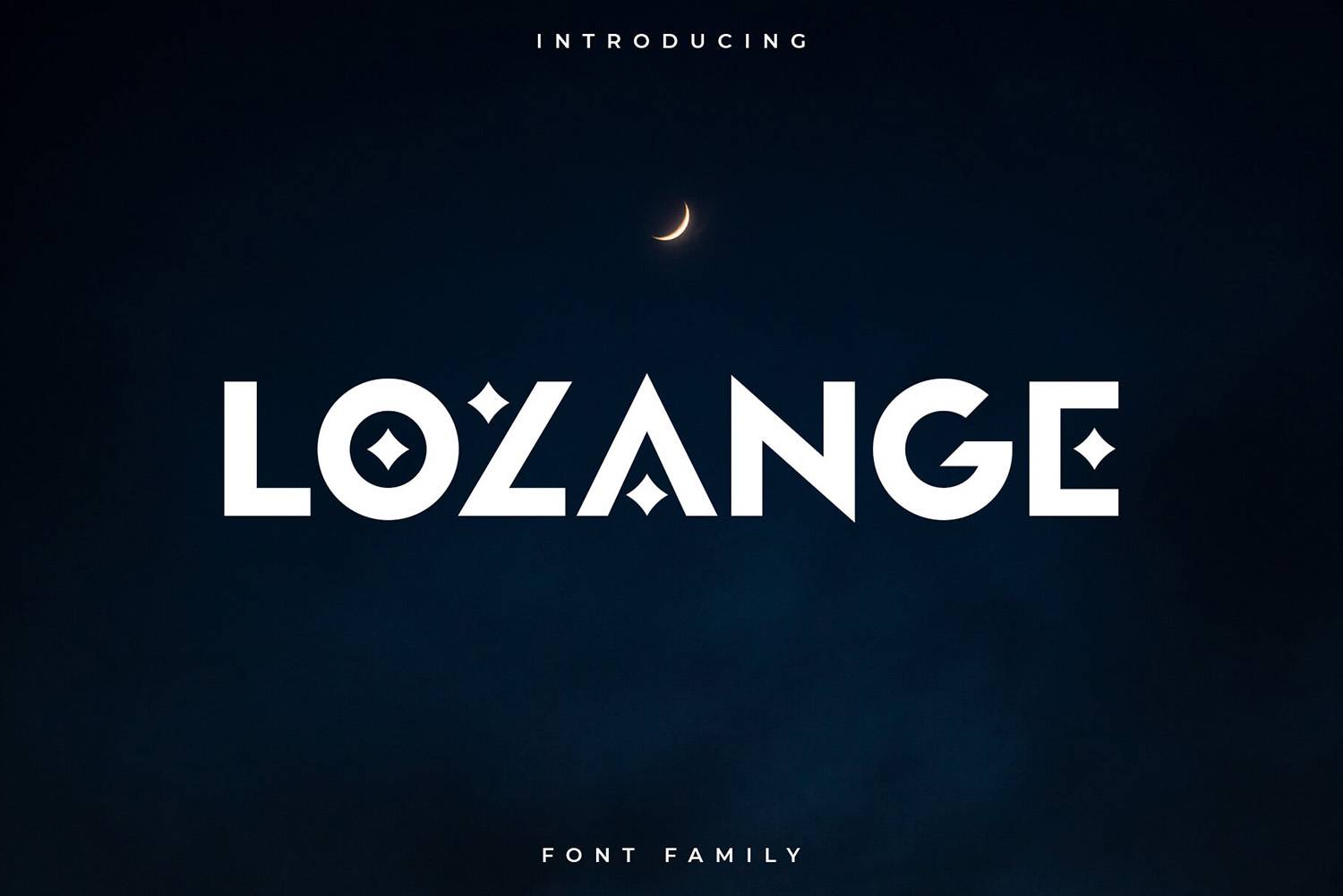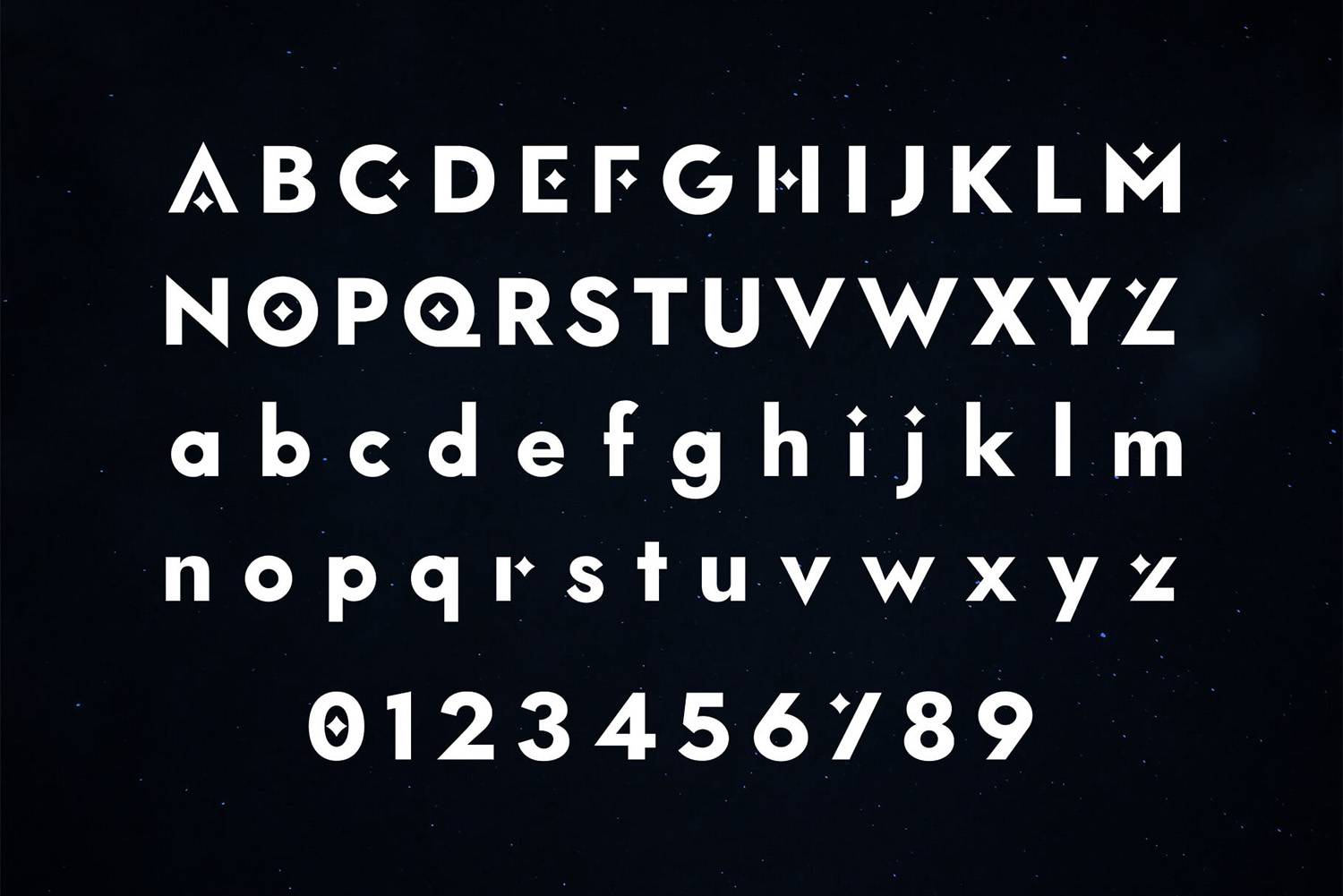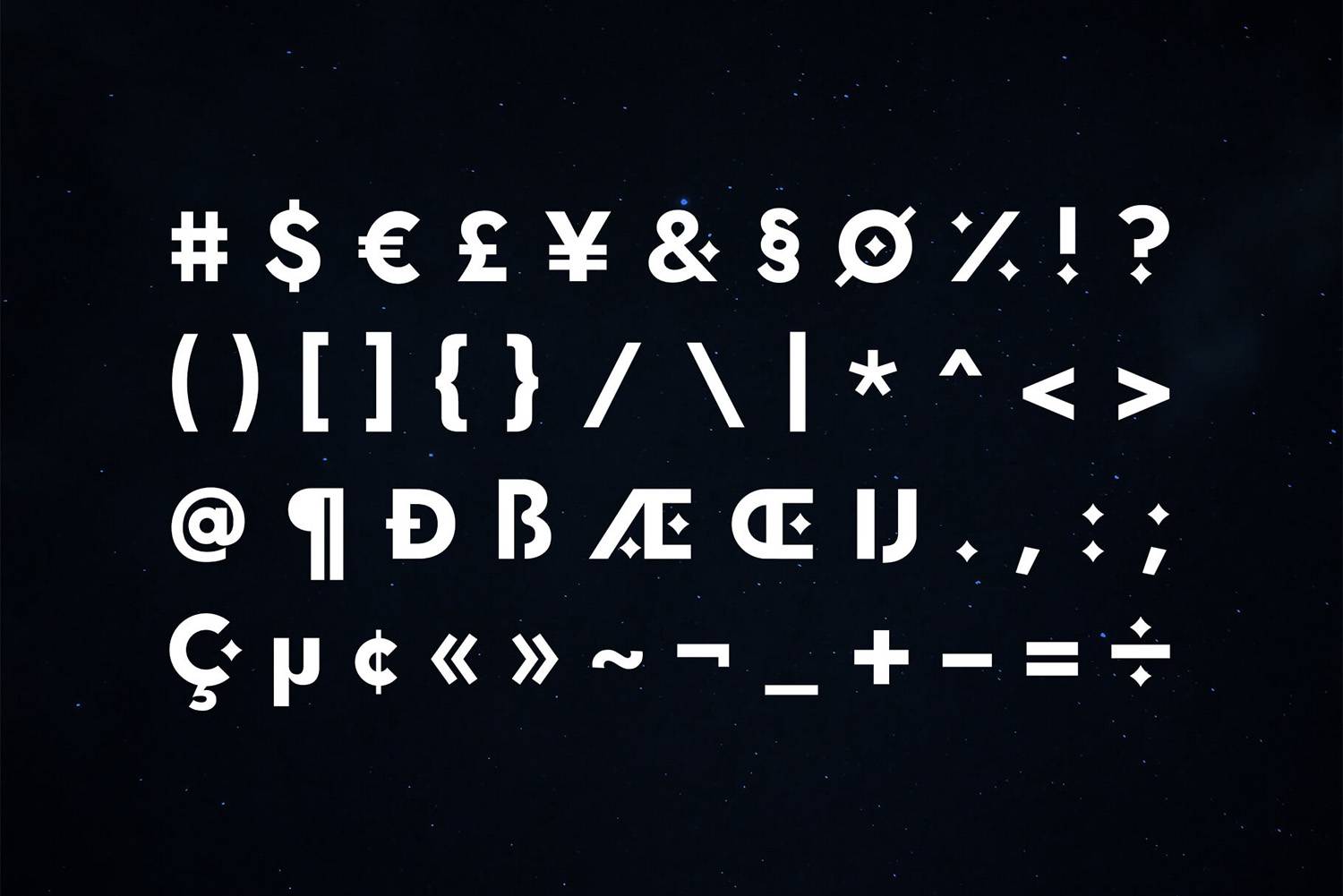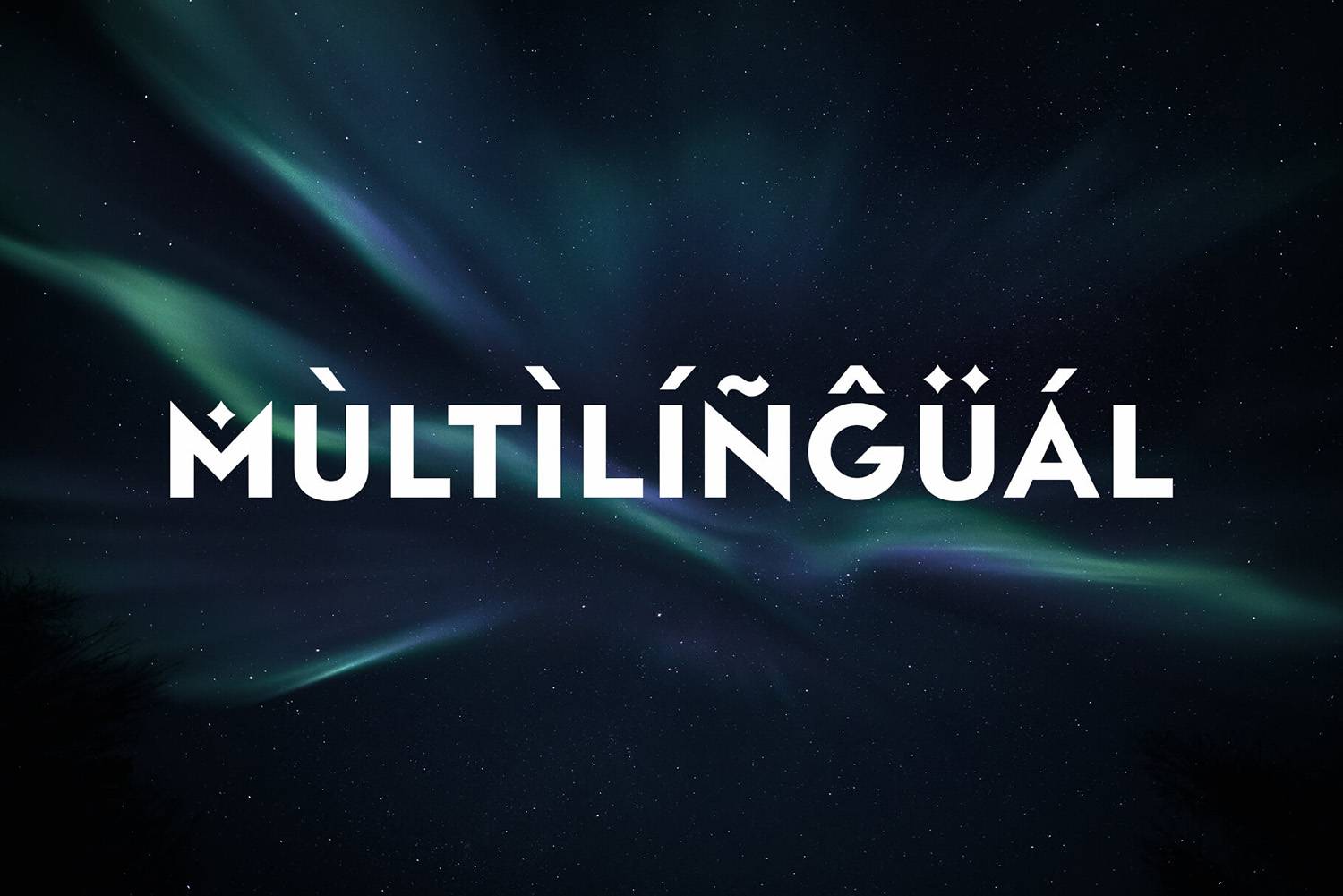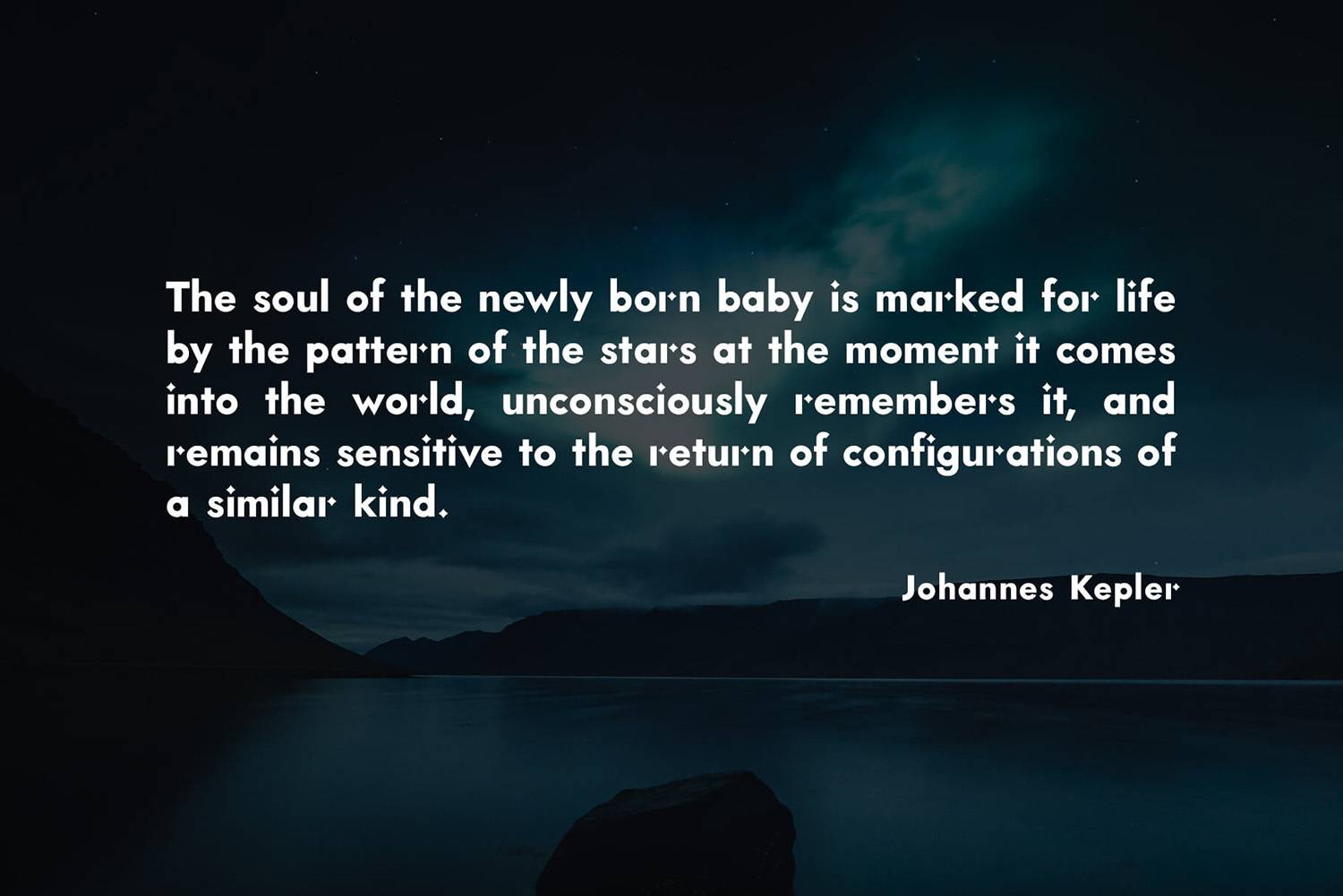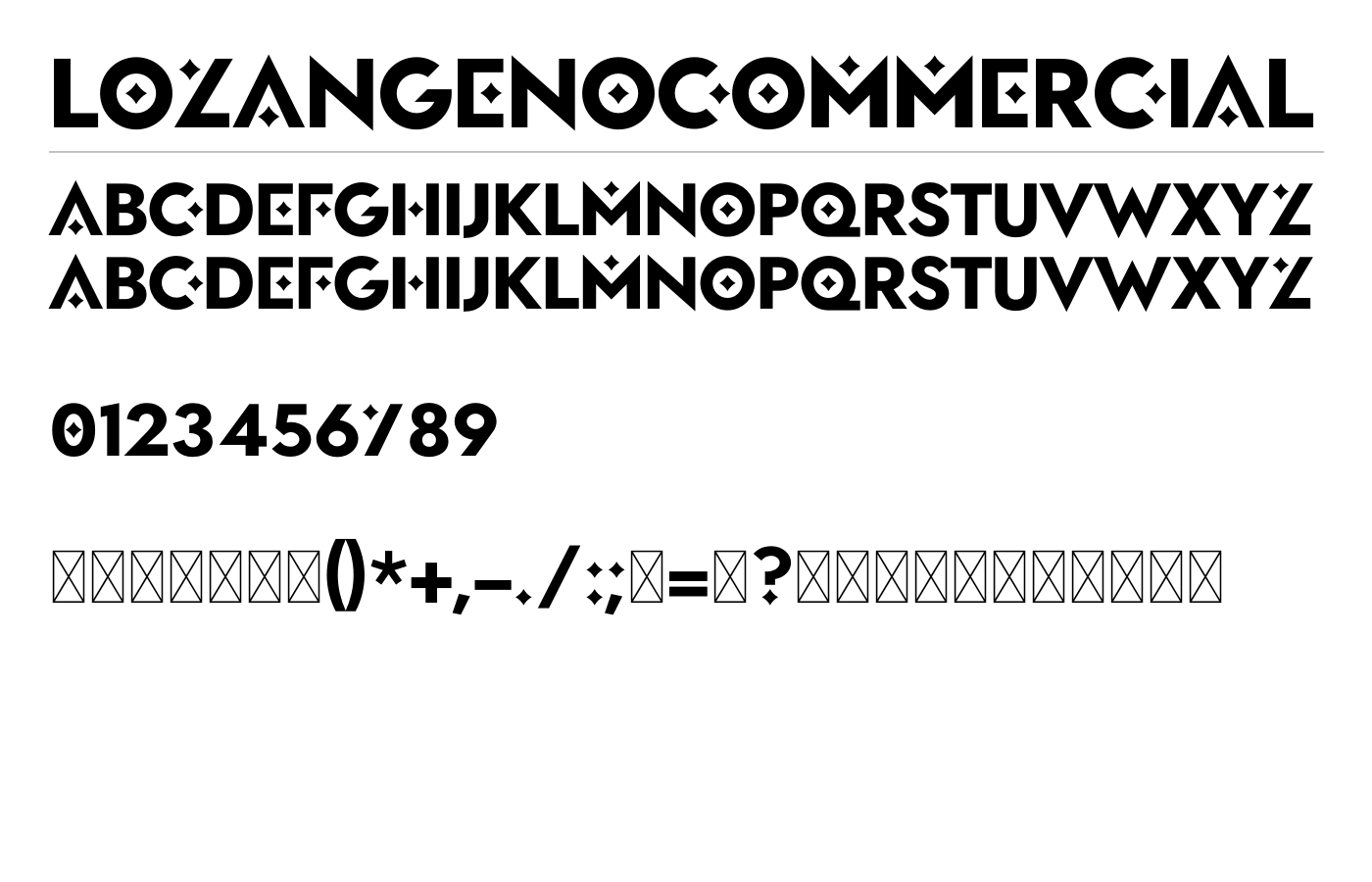
Lozange is a bold, geometric sans serif font with a strong Art Deco influence, featuring striking diamond-shaped embellishments integrated into its letterforms. Its high-contrast, blocky shapes combined with unique ornamental details give it a vintage yet modern feel, making it perfect for eye-catching headlines, logos, and branding that aim to convey elegance and sophistication with a touch of flair. This font works especially well in fashion, luxury, and creative industries where distinctive style and personality are key.
| Font family | Lozange Font |
| Designer | Robin Campistron |